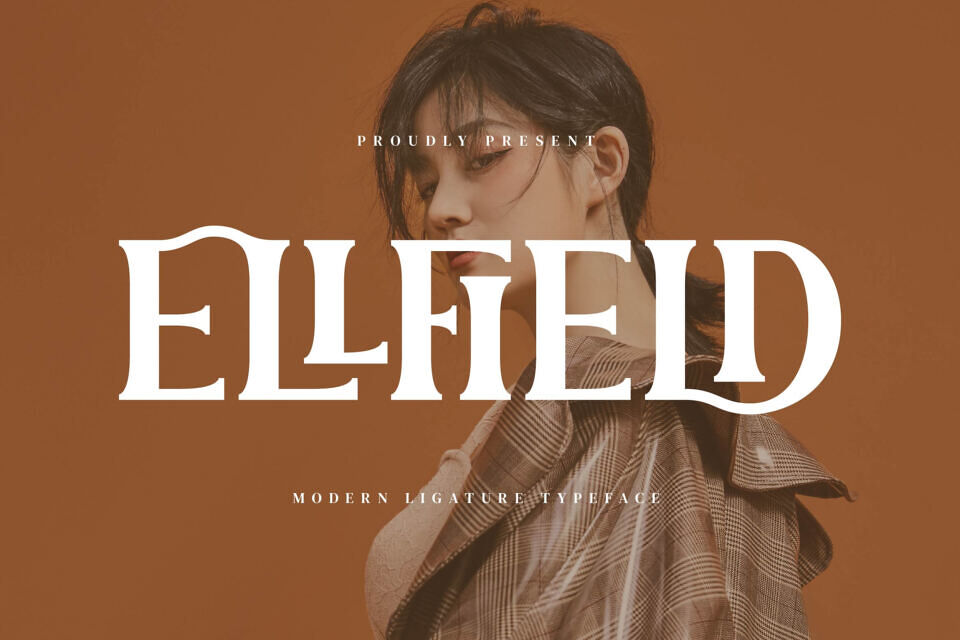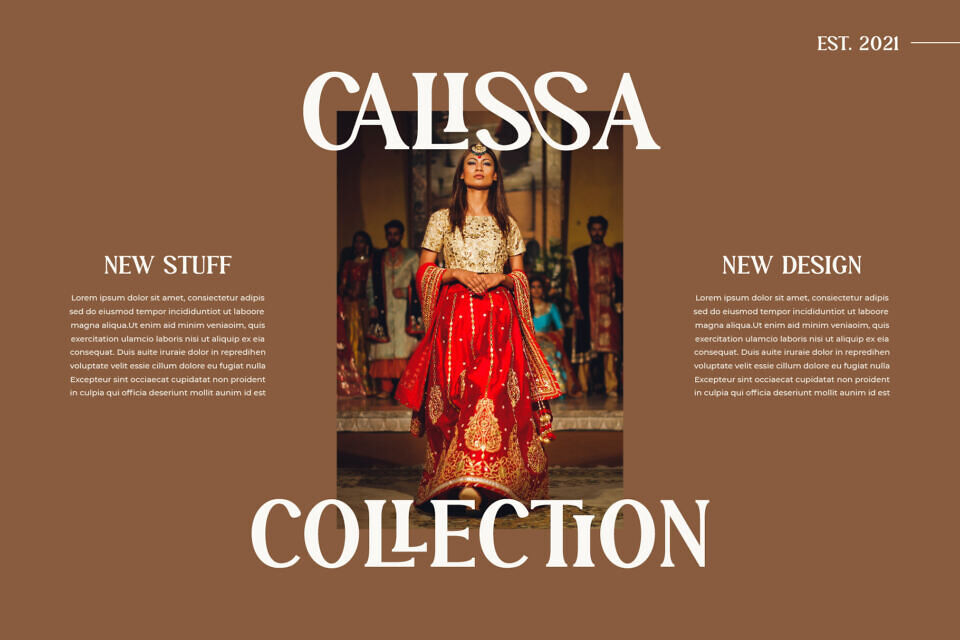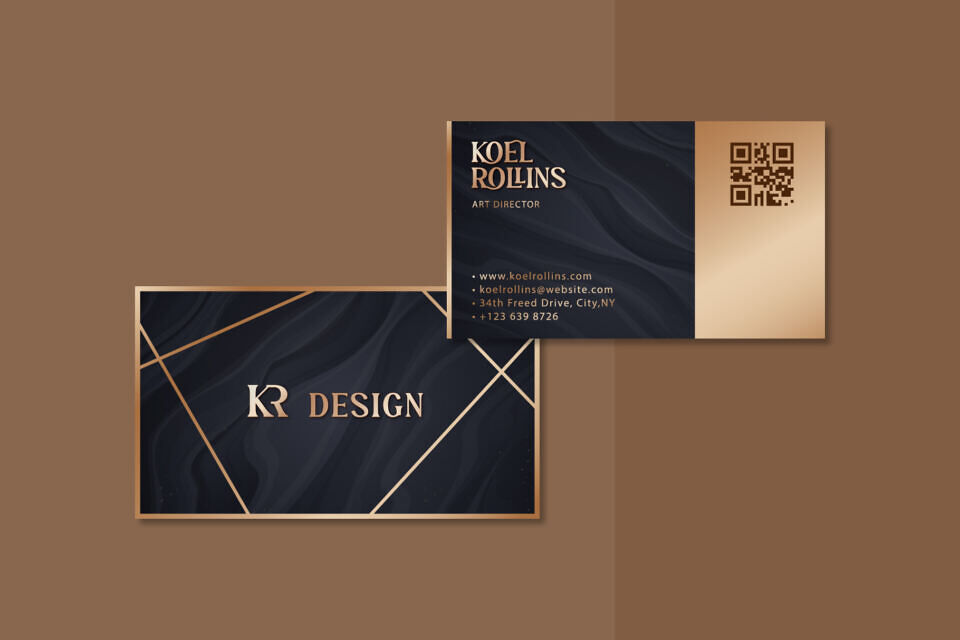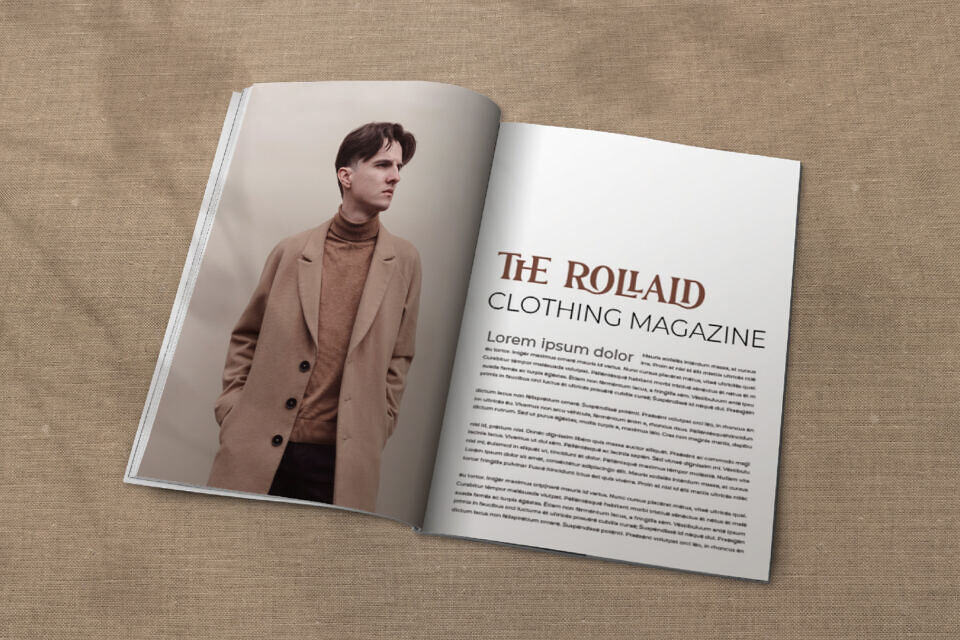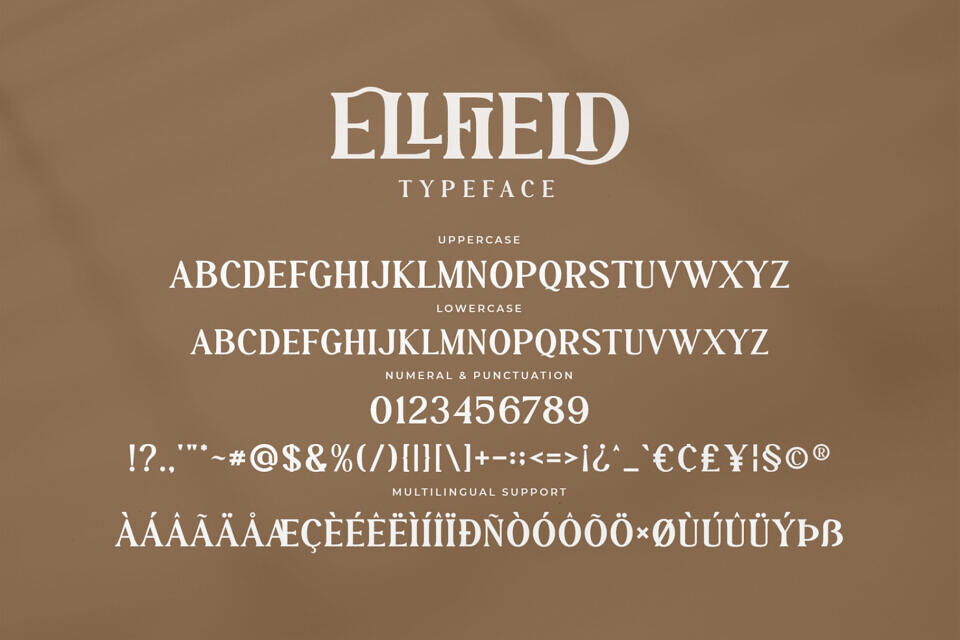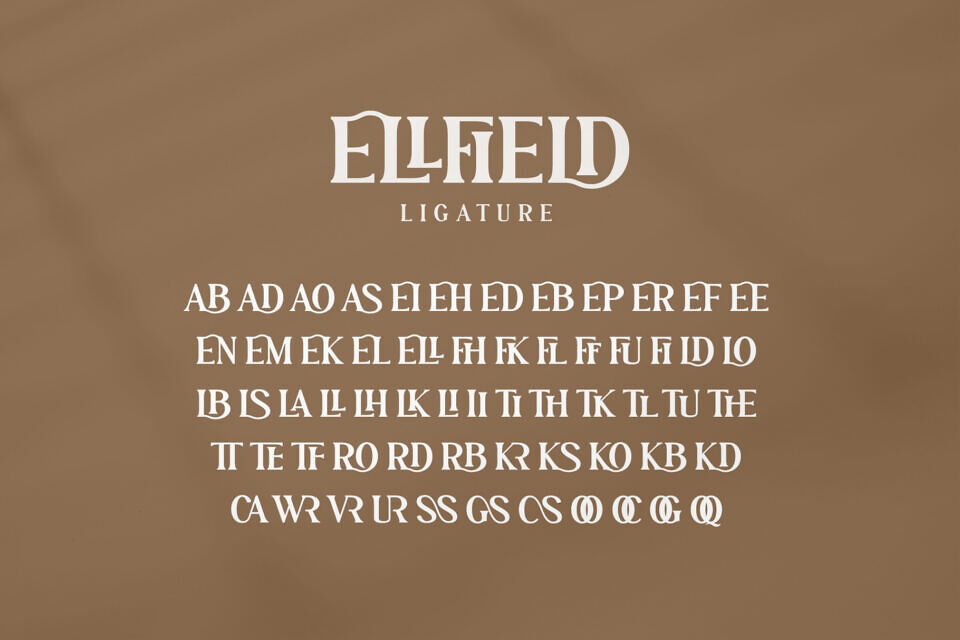
Ellfield Font
The ELLFIELD typeface is a sleek, minimalist font inspired by a renowned logo design. It’s ideal for creating templates, brochures, videos, and advertising materials, including logos and brand identities. This font is PUA encoded which means you can access all of the glyphs and swashes with ease!